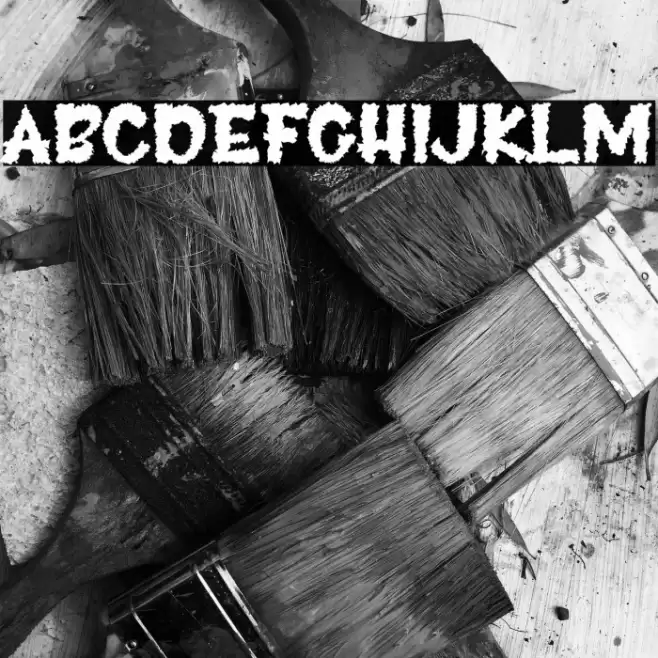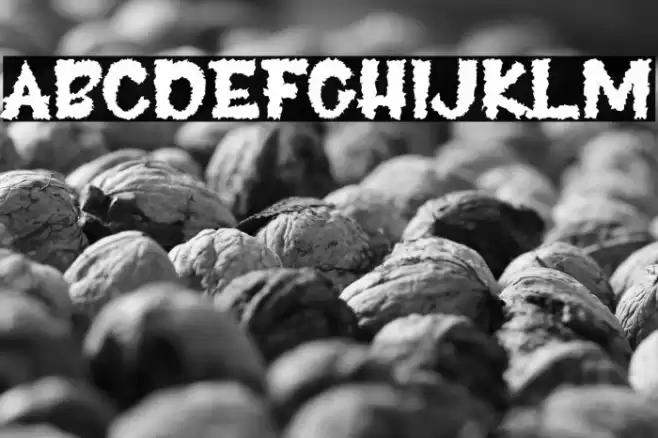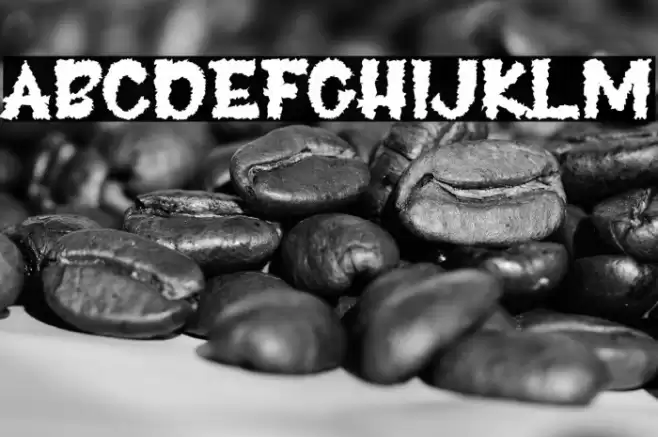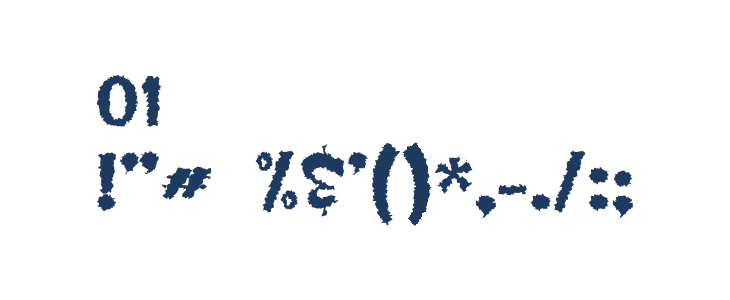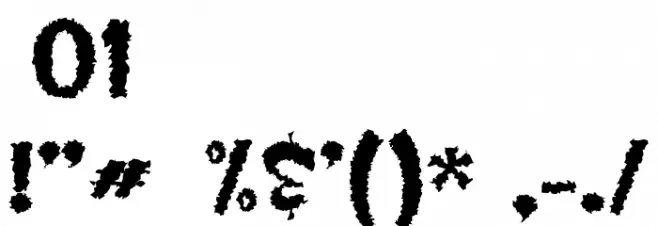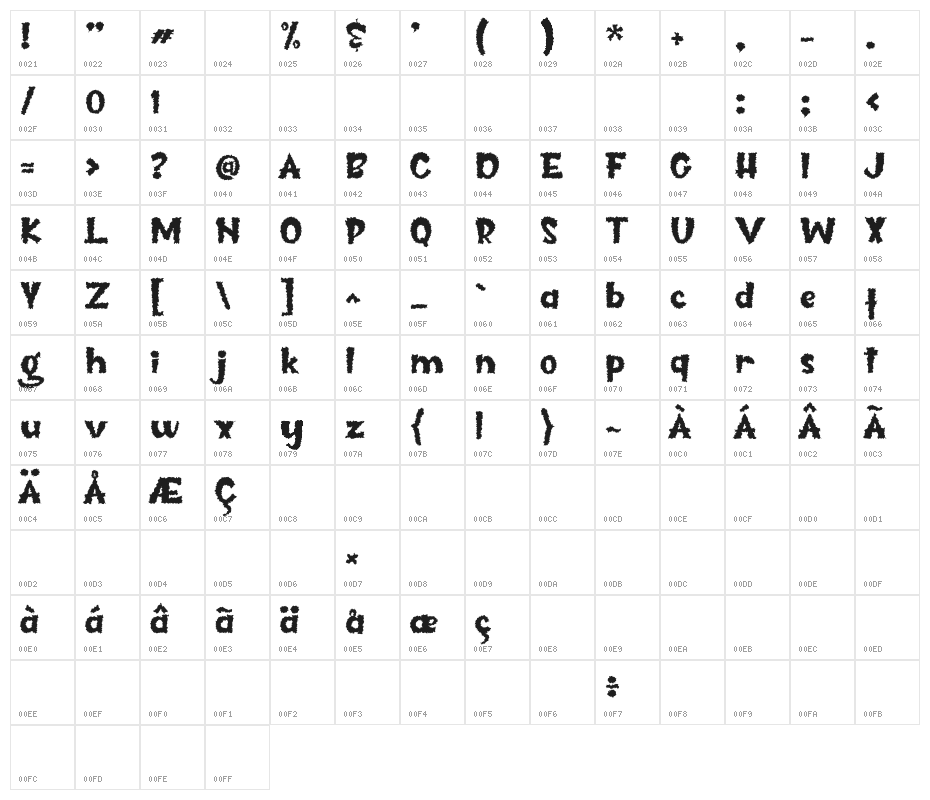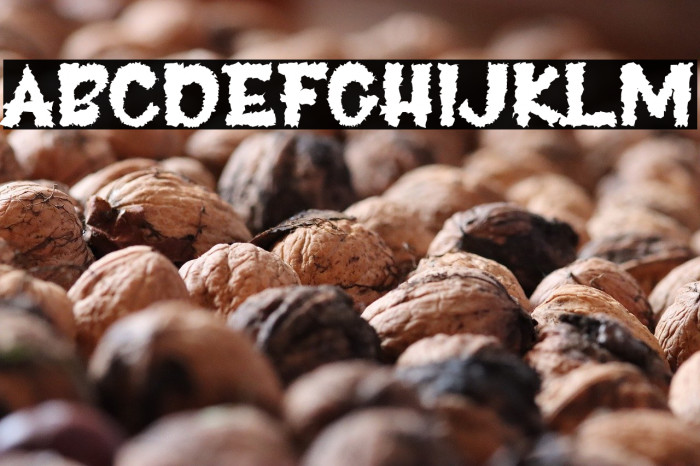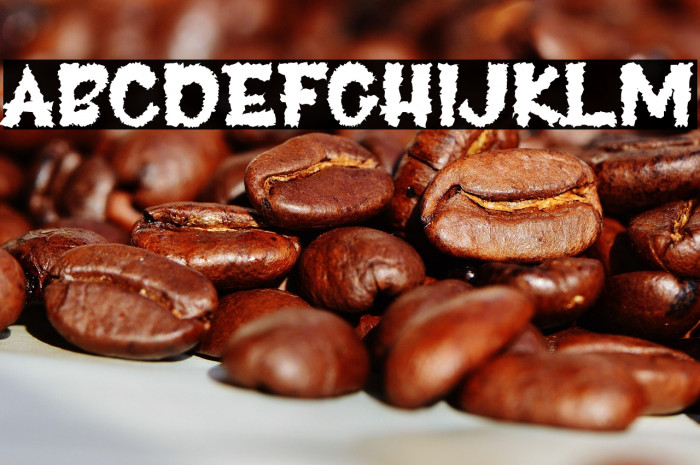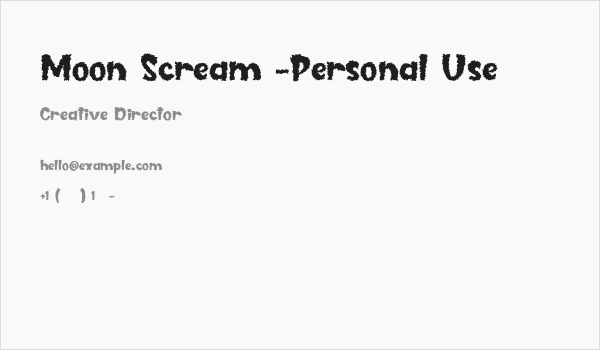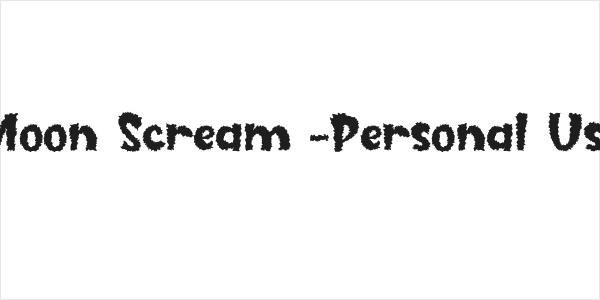
Moon Scream -Personal Use Font
Moon Scream -Personal Use Description
This font features a bold and jagged style, reminiscent of hand-cut paper or rough brush strokes. The edges are irregular, giving it a raw, energetic feel. The uppercase and lowercase letters maintain a consistent thickness, contributing to a cohesive look. The numbers and special characters follow the same rugged aesthetic, making the font suitable for designs that require a dramatic and impactful appearance. Its unique texture and bold presence make it stand out, ideal for capturing attention.
A bold, jagged font with a rough, energetic style from Uncategorized fonts.
- Font: Moon Scream -Personal Use
- Proposed Projects: Ideal for horror-themed posters, edgy album covers, or any project needing a dramatic, eye-catching typeface.
- Use Case: Headlines, Posters, Logos
Moon Scream -Personal Use UPPERCASE
Moon Scream -Personal Use LOWERCASE
Moon Scream -Personal Use OTHER CHARS